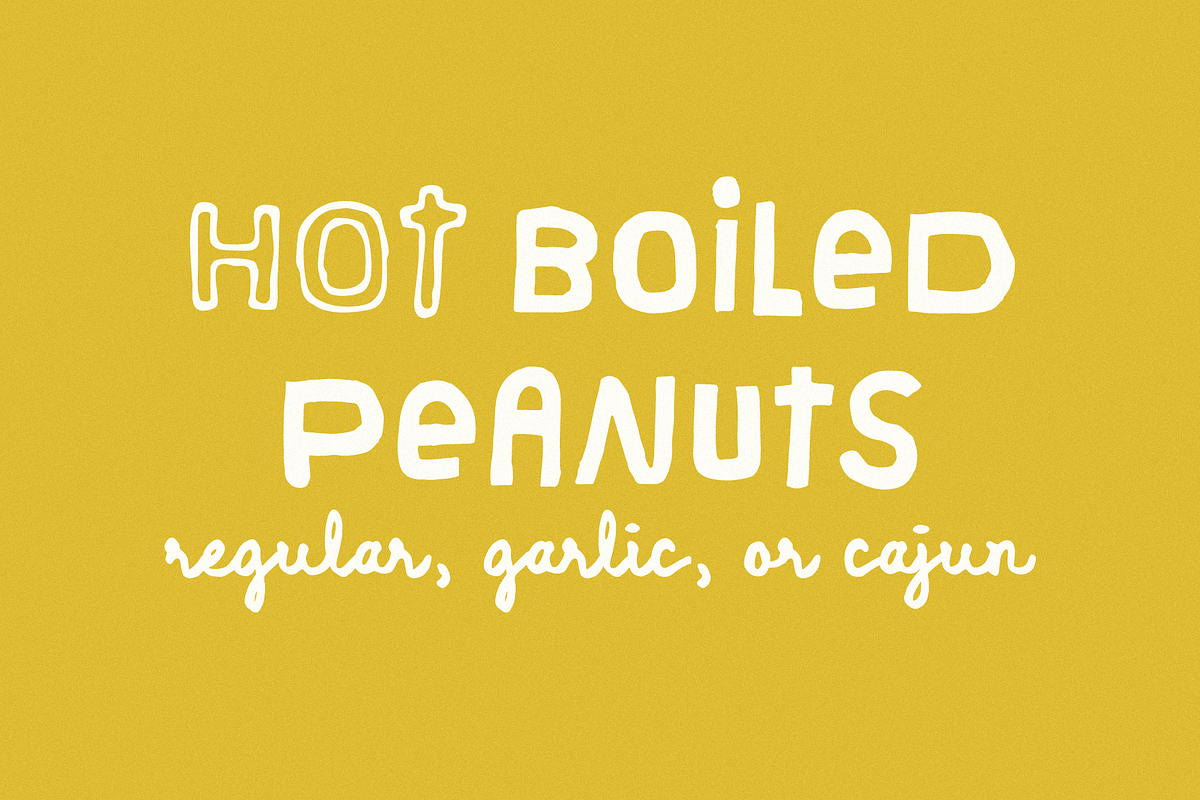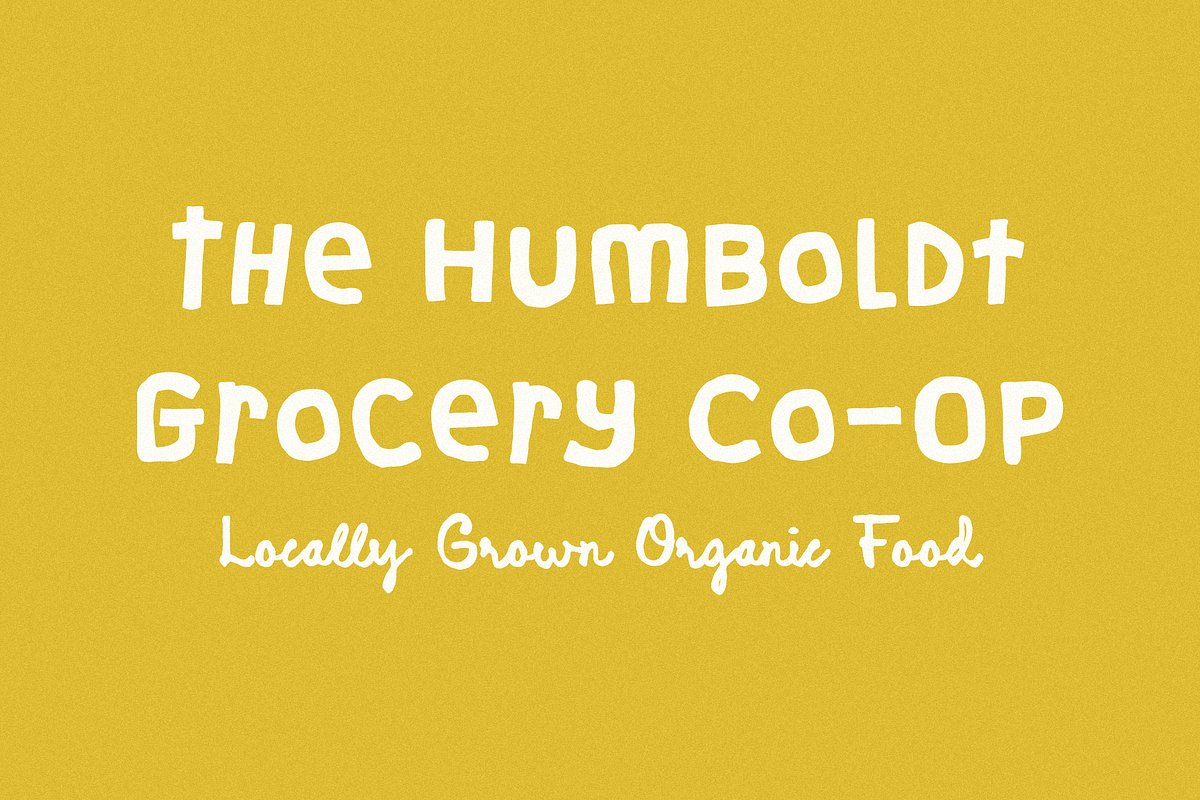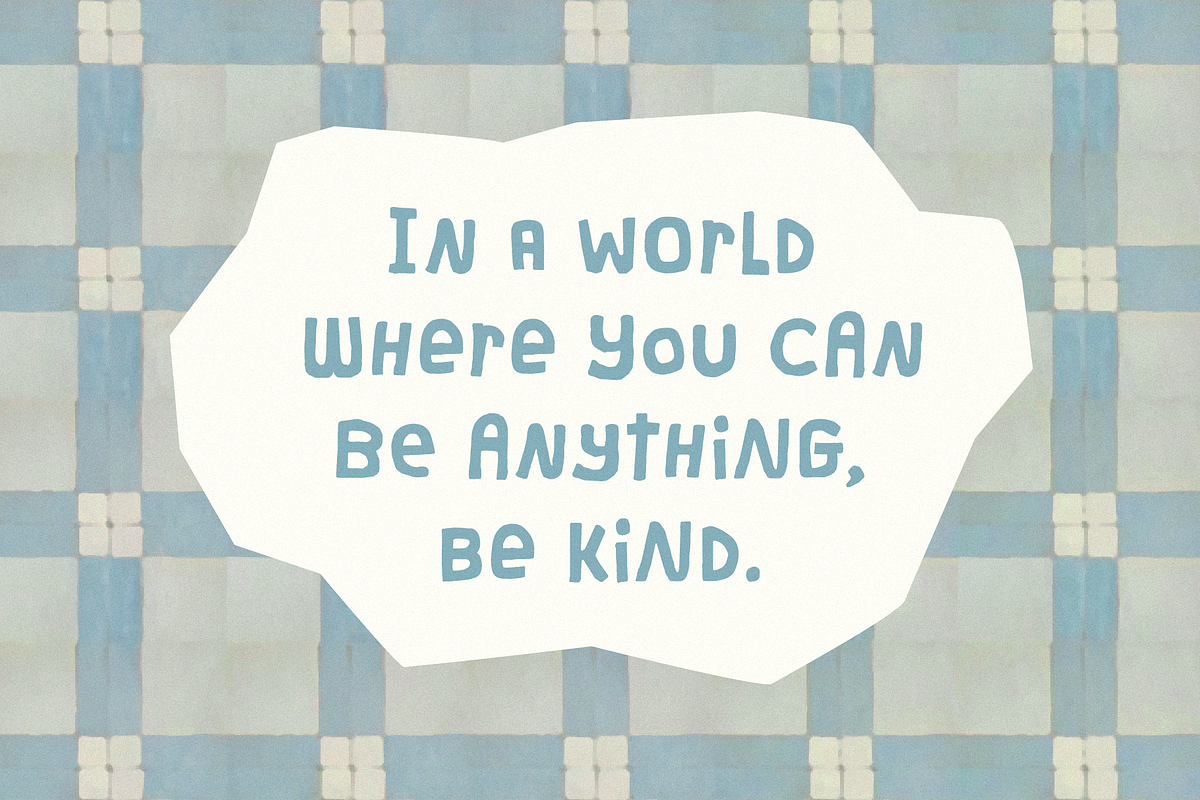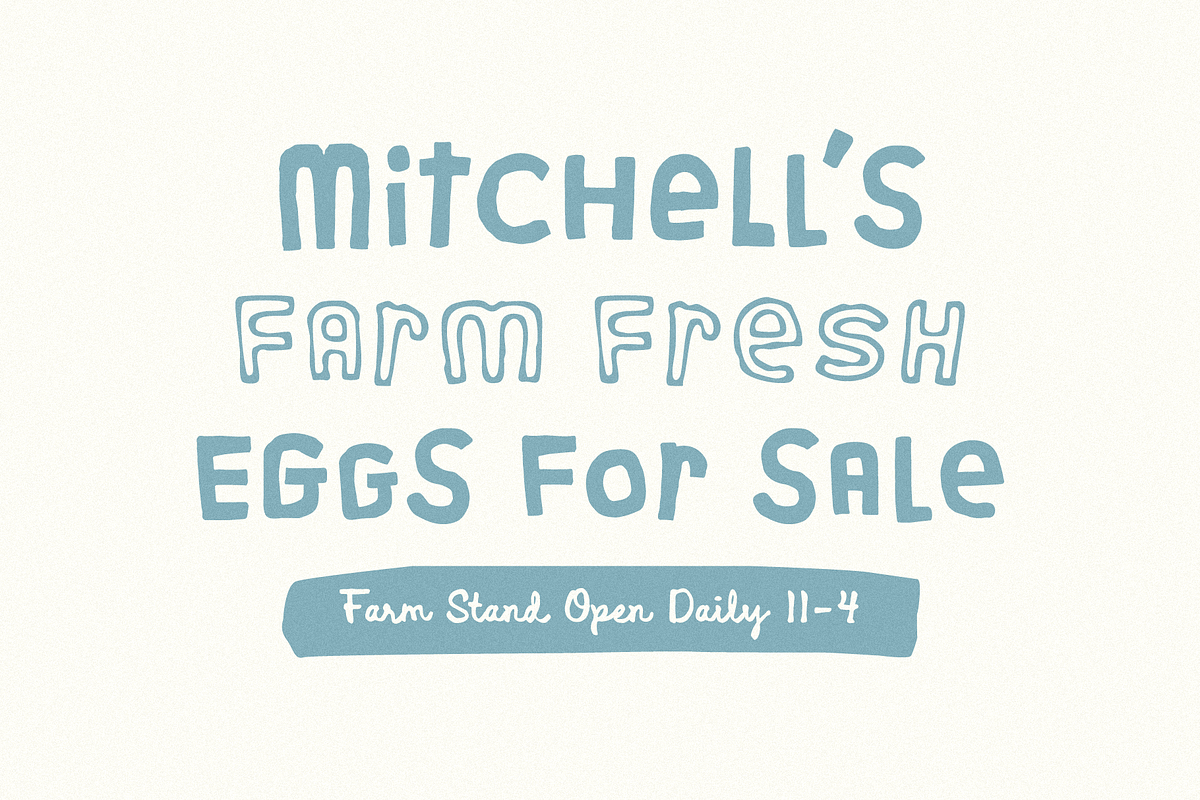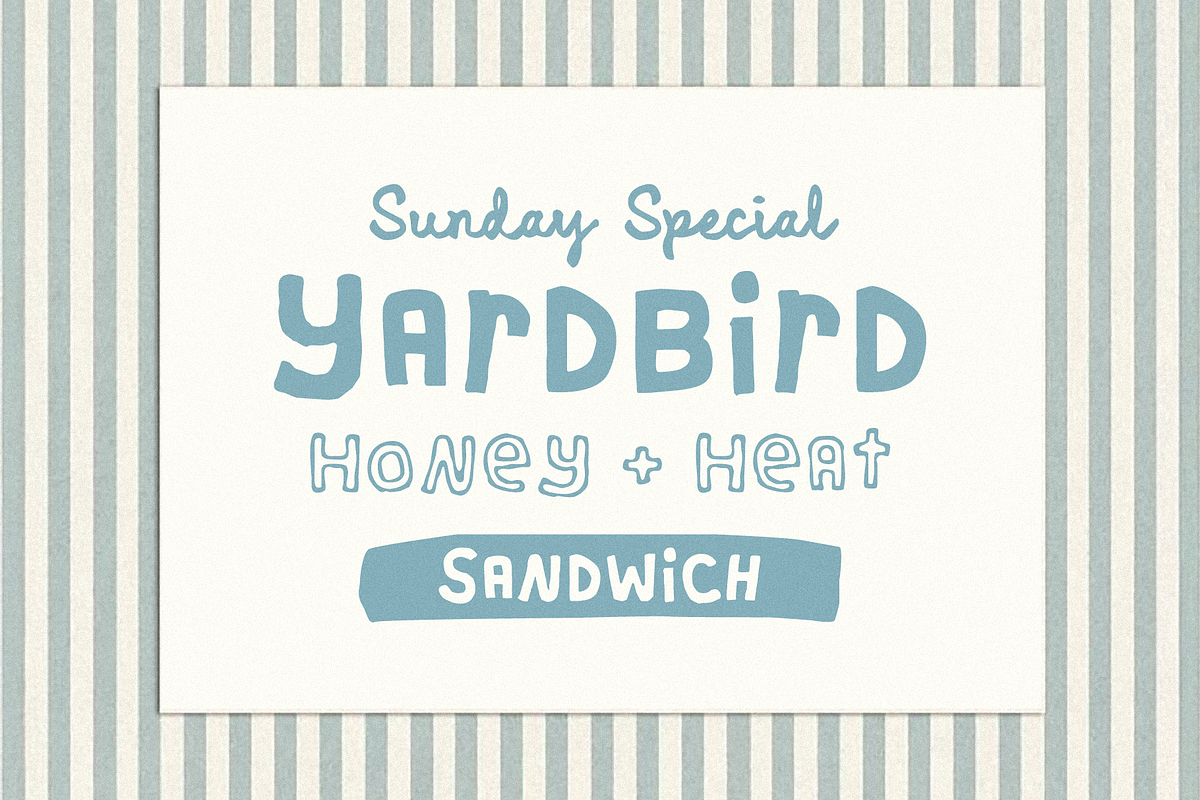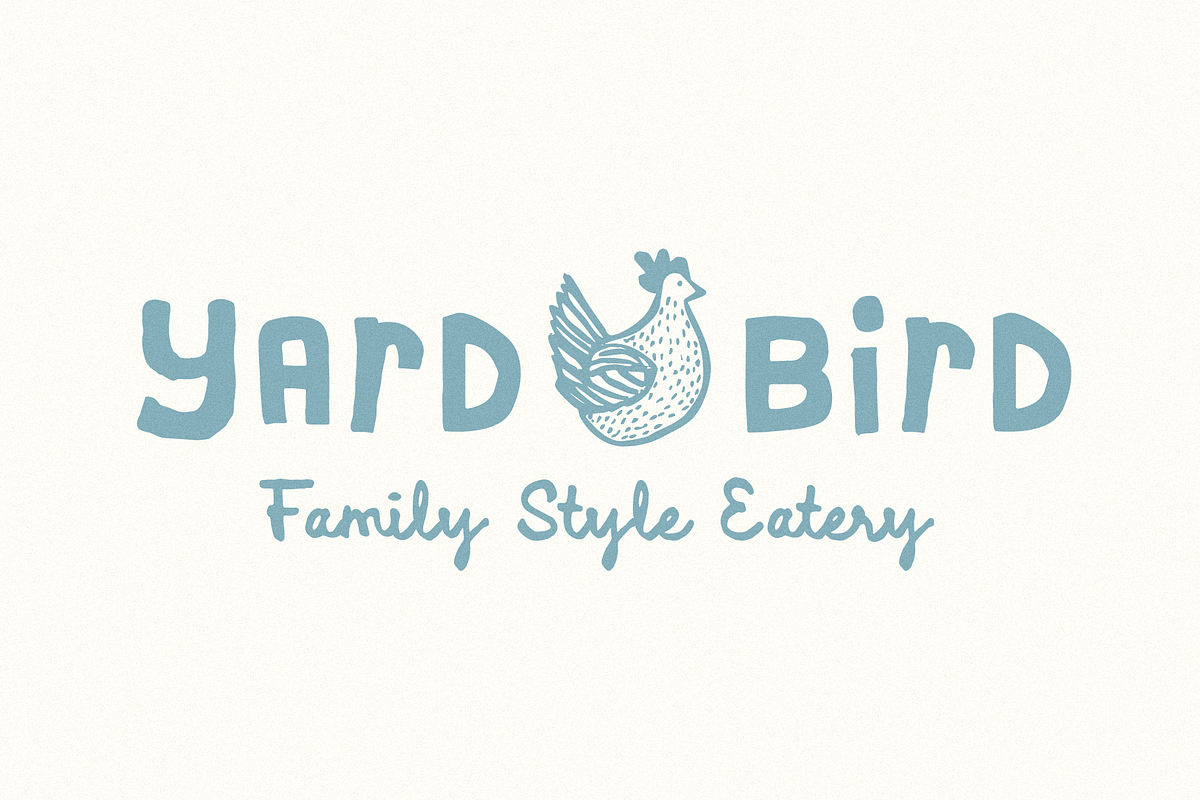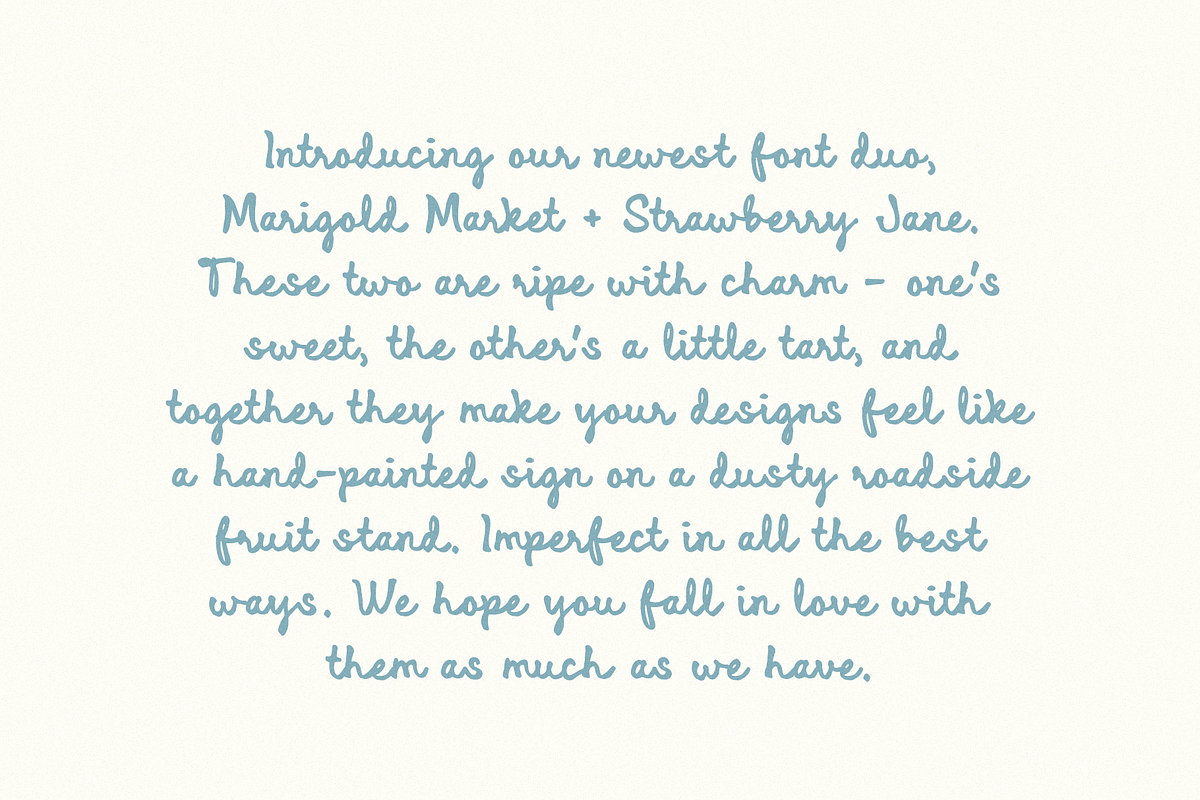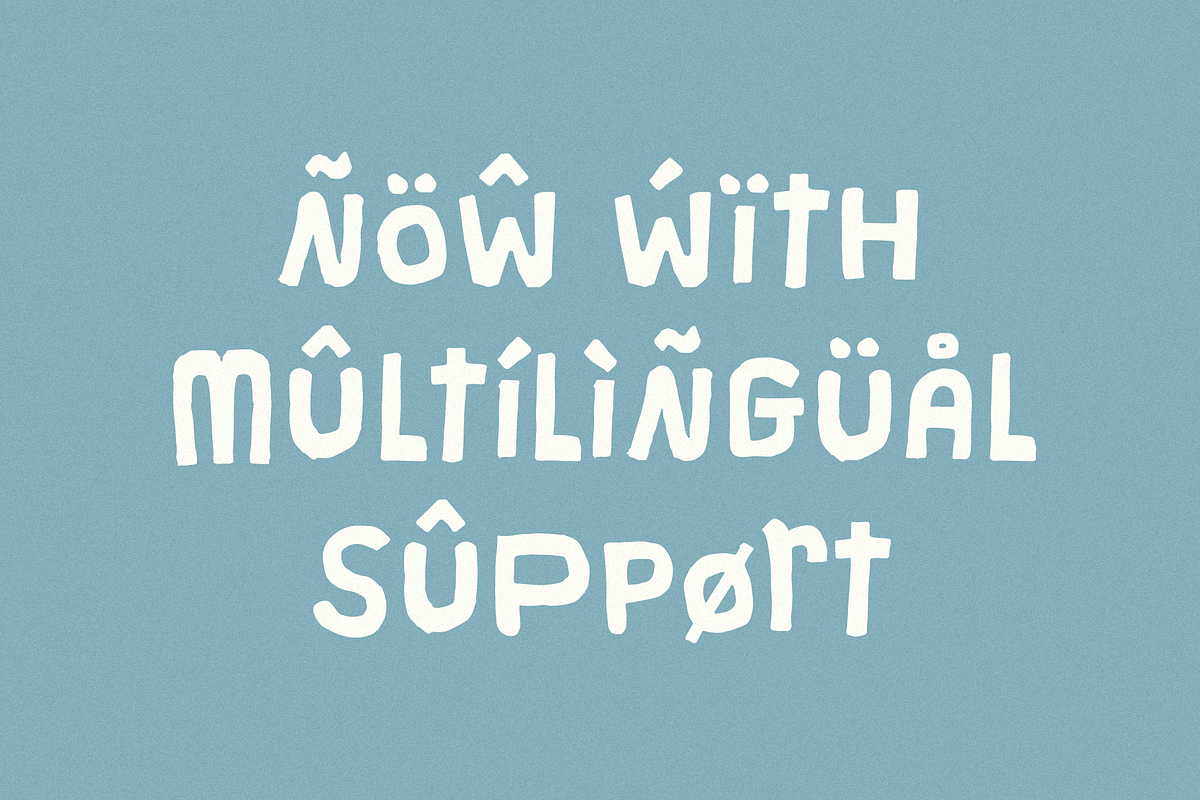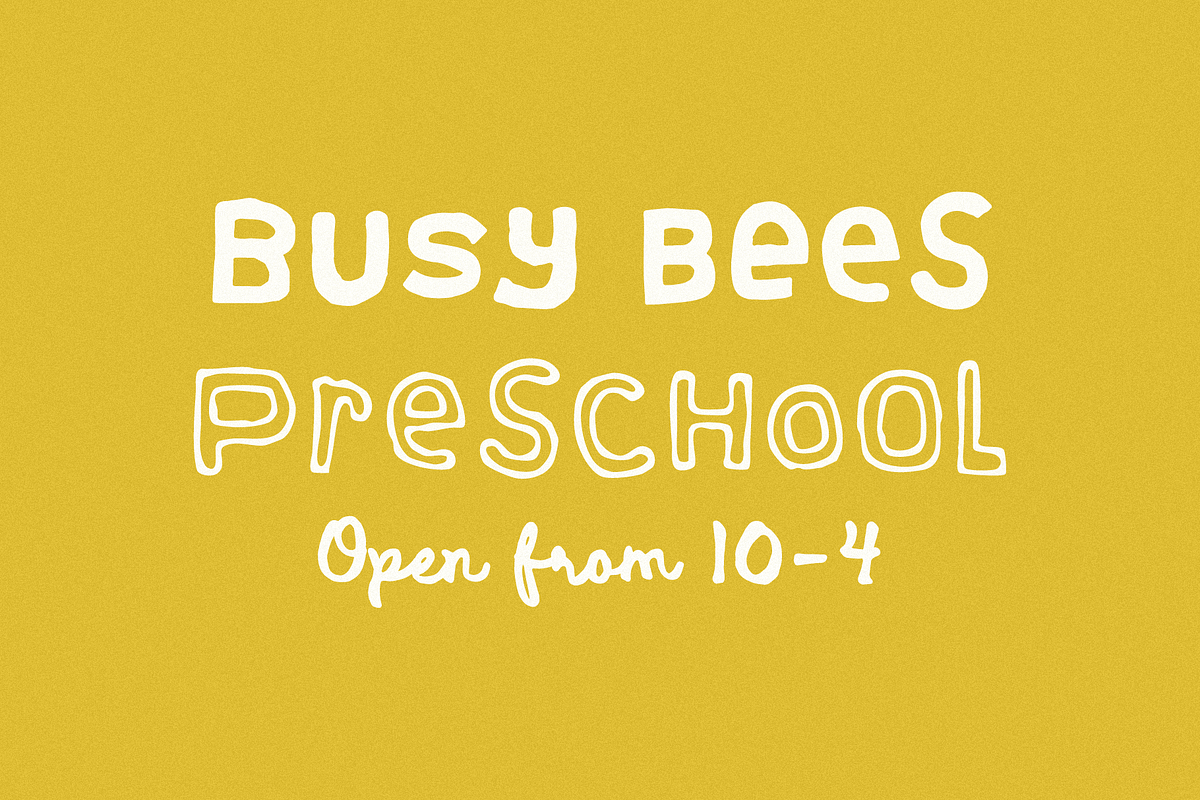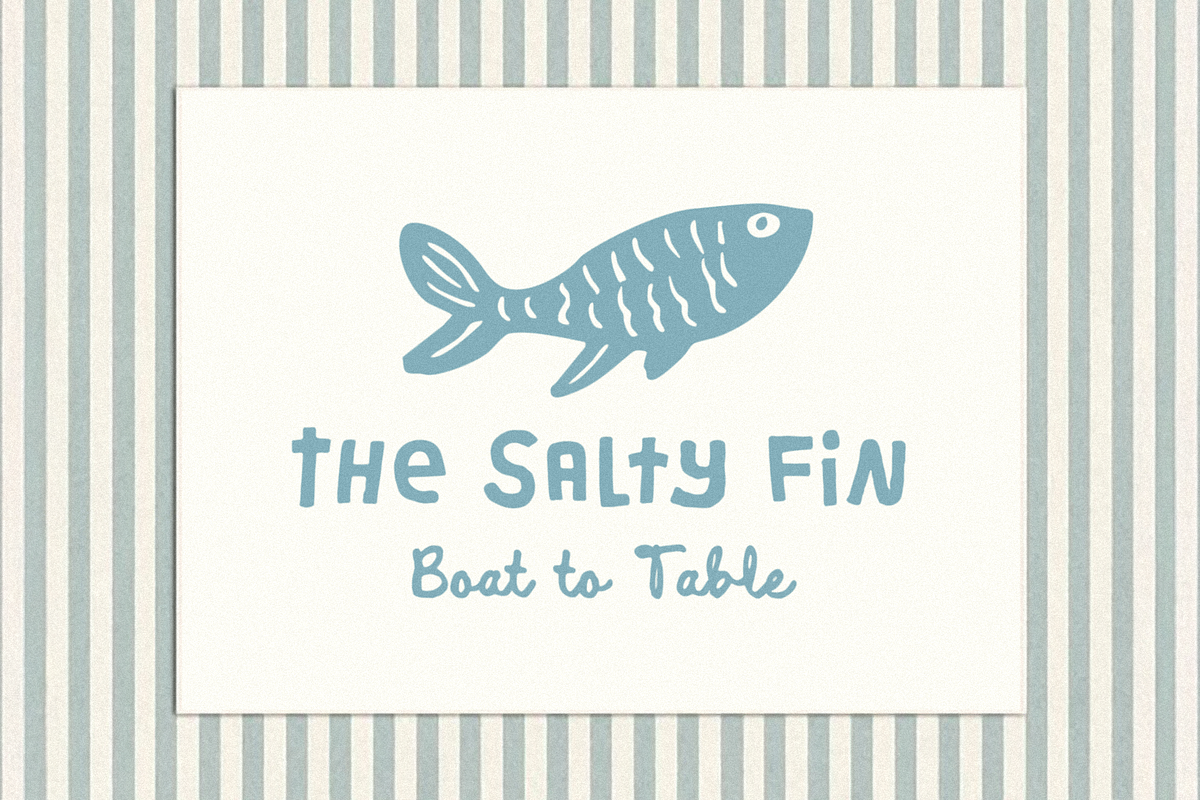
Marigold Market + Strawberry Jane
MARIGOLD MARKET + STRAWBERRY JANE – Introducing our newest lovably lopsided font duo! These two are ripe with charm—one’s sweet, the other’s a little tart, and together they make your designs feel like a hand-painted sign on a dusty roadside fruit stand. They're imperfect in all the best ways.
470 Glyphs Total: Uppercase and Lowercase Characters, Numbers, Symbols, and Punctuation.
Language Support: Danish, English, French, German, Irish, Italian, Portuguese, Spanish, Swedish, and Swiss German.